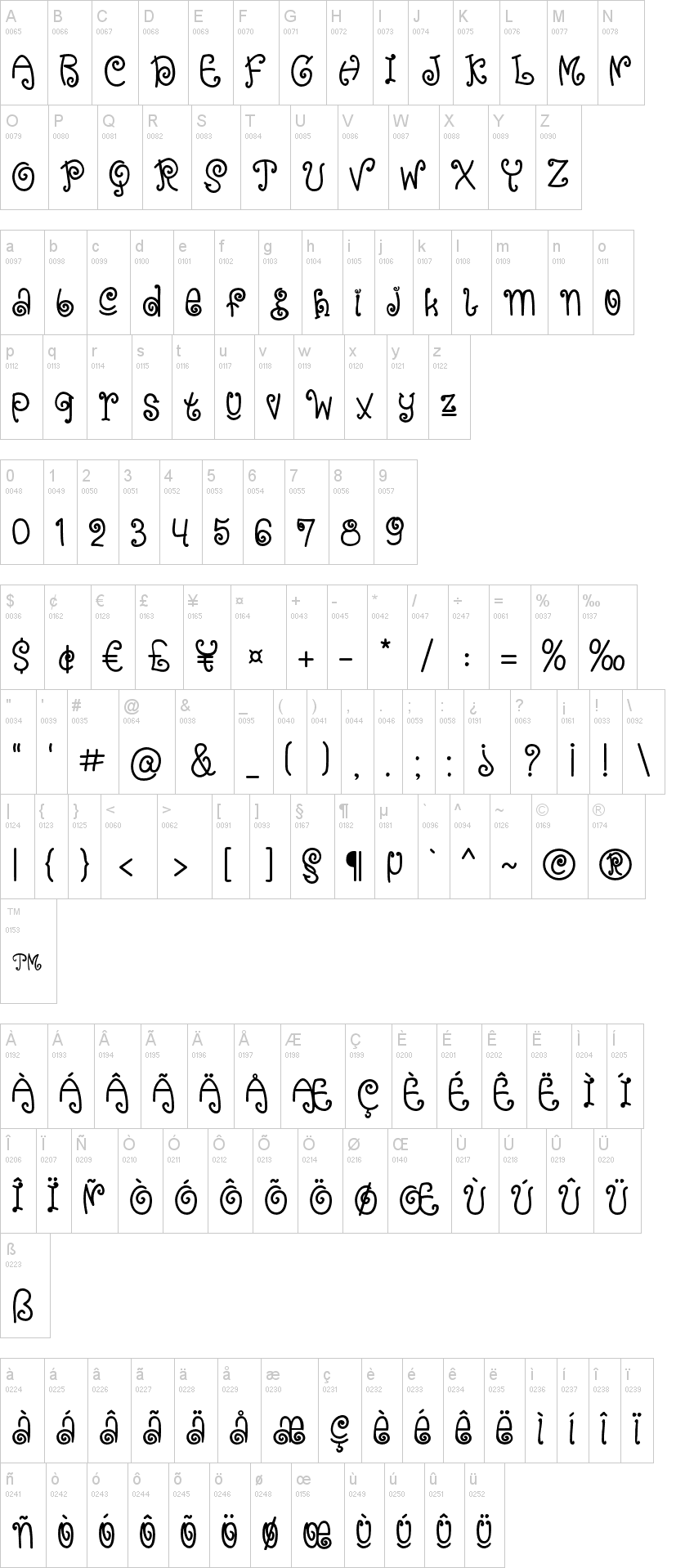
Blue Ocean Font - Looking for blue ocean fonts? Download blue ocean font, a creative display typeface that has its own unique style. This typeface is perfect for an elegant & luxury logo, book or movie title. Click to find the best 13 free fonts in the blue ocean style.
Download blue ocean font, a creative display typeface that has its own unique style. Looking for blue ocean fonts? This typeface is perfect for an elegant & luxury logo, book or movie title. Click to find the best 13 free fonts in the blue ocean style.
This typeface is perfect for an elegant & luxury logo, book or movie title. Download blue ocean font, a creative display typeface that has its own unique style. Looking for blue ocean fonts? Click to find the best 13 free fonts in the blue ocean style.
Blue Ocean Display Font
Download blue ocean font, a creative display typeface that has its own unique style. Looking for blue ocean fonts? Click to find the best 13 free fonts in the blue ocean style. This typeface is perfect for an elegant & luxury logo, book or movie title.
Looking for blue ocean fonts? Download blue ocean font, a creative display typeface that has its own unique style. Click to find the best 13 free fonts in the blue ocean style. This typeface is perfect for an elegant & luxury logo, book or movie title.
Click to find the best 13 free fonts in the blue ocean style. This typeface is perfect for an elegant & luxury logo, book or movie title. Download blue ocean font, a creative display typeface that has its own unique style. Looking for blue ocean fonts?
This typeface is perfect for an elegant & luxury logo, book or movie title. Click to find the best 13 free fonts in the blue ocean style. Download blue ocean font, a creative display typeface that has its own unique style. Looking for blue ocean fonts?
Looking for blue ocean fonts? Download blue ocean font, a creative display typeface that has its own unique style. Click to find the best 13 free fonts in the blue ocean style. This typeface is perfect for an elegant & luxury logo, book or movie title.
Blue Ocean Font
Looking for blue ocean fonts? This typeface is perfect for an elegant & luxury logo, book or movie title. Click to find the best 13 free fonts in the blue ocean style. Download blue ocean font, a creative display typeface that has its own unique style.
Blue Ocean Font
Looking for blue ocean fonts? Download blue ocean font, a creative display typeface that has its own unique style. Click to find the best 13 free fonts in the blue ocean style. This typeface is perfect for an elegant & luxury logo, book or movie title.
Looking for blue ocean fonts? Download blue ocean font, a creative display typeface that has its own unique style. This typeface is perfect for an elegant & luxury logo, book or movie title. Click to find the best 13 free fonts in the blue ocean style.
Blue Ocean Font
Looking for blue ocean fonts? This typeface is perfect for an elegant & luxury logo, book or movie title. Click to find the best 13 free fonts in the blue ocean style. Download blue ocean font, a creative display typeface that has its own unique style.
This Typeface Is Perfect For An Elegant & Luxury Logo, Book Or Movie Title.
Looking for blue ocean fonts? Download blue ocean font, a creative display typeface that has its own unique style. Click to find the best 13 free fonts in the blue ocean style.